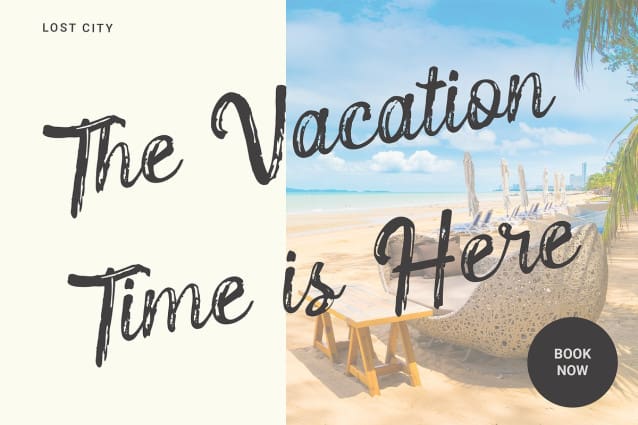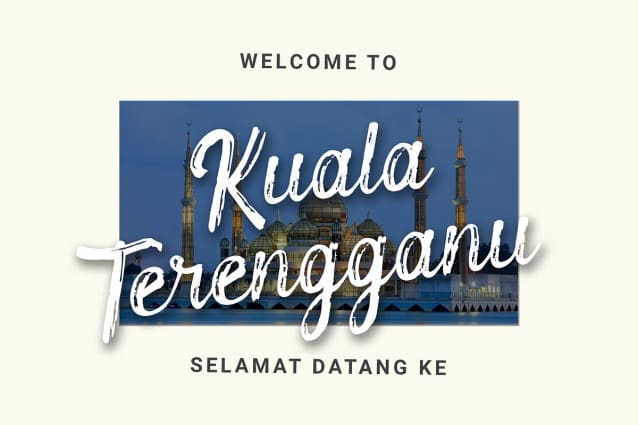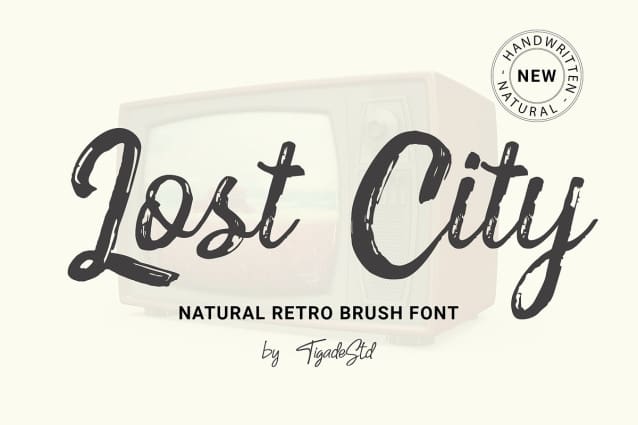
Lost City Font
Lost City Font is a Natural Retro Brush Font. It is a handwritten which can beautifully enhance your design and product with the feel of retro. It’s perfect for creating quotes, greeting cards, branding, promotion, advertisements.